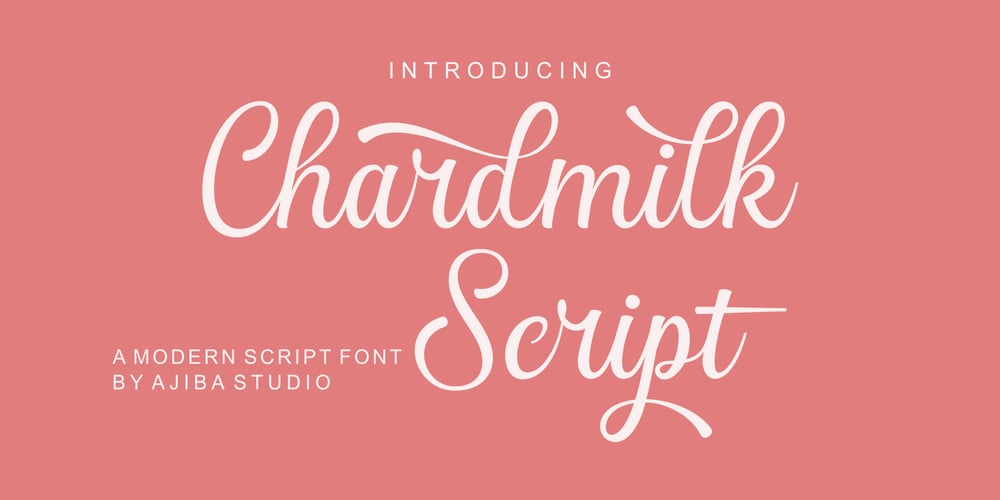
Chardmilk Script Font Family was designed by Jamhur and published by Ajibatype. Chardmilk Script contains 1 styles and family package options. Chardmilk Script is a sleek, refined script font. It looks dazzling on wedding invitations, thank you cards, quotes, greeting cards, logos, business cards, and every other design which needs a customized touch. This font is PUA encoded which means you can access all of the glyphs and swashes with ease